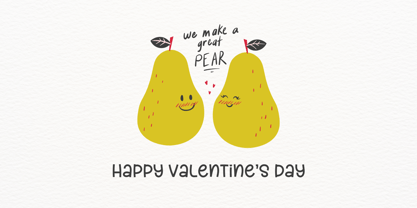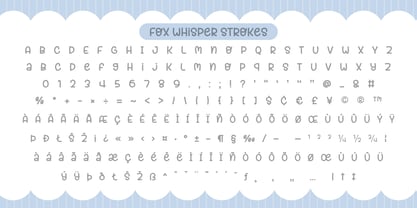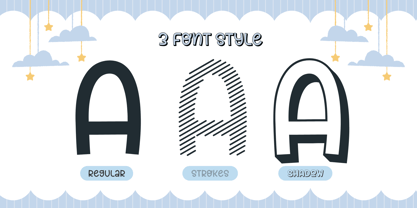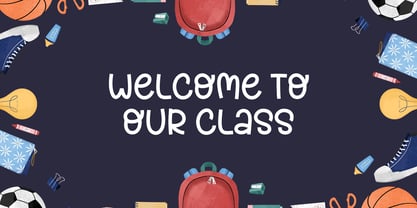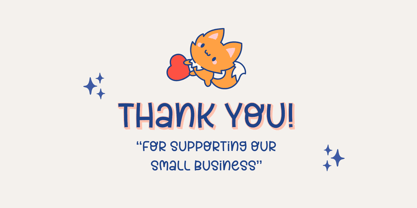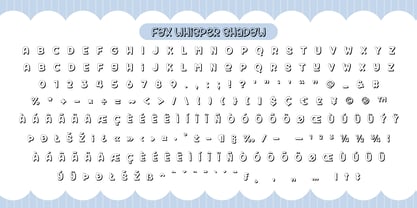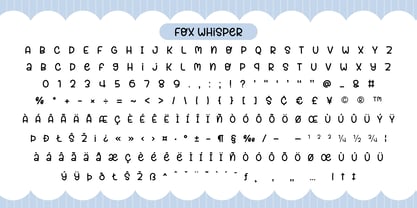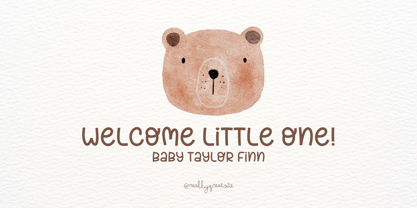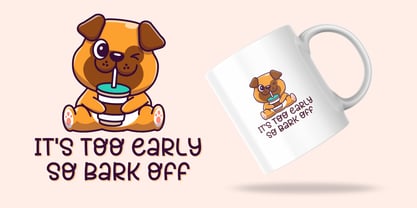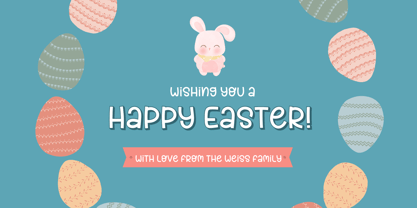
Fox Whisper
Die Schriftfamilie Fox Whisper wurde von Rattana Rattanawan entworfen und von Fox7 veröffentlicht. Fox Whisper enthält 3 Stile und Familienpaketoptionen.
Fox Whisper is a fun and playful display font designed to bring a cheerful and whimsical touch to your creative projects. Featuring three unique styles—Regular, Strokes, and Shadow—this font is perfect for children's books, greeting cards, product packaging, and cute branding.
With its hand-drawn aesthetic, soft edges, and charming details like heart accents, Fox Whisper radiates warmth and friendliness. Whether you want a bold and solid look, a textured sketch effect, or a 3D-like shadow, this font provides the versatility to make your designs stand out.
Ideal for crafting, digital artwork, and personalized gifts, Fox Whisper adds a delightful and expressive character to any project. Let your creativity shine with this adorable and stylish typeface!